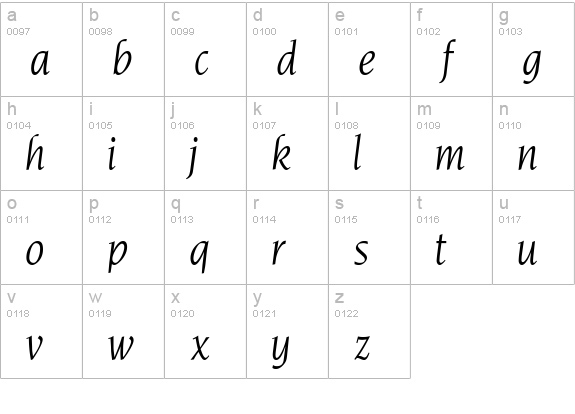
Novarese Italic Font Details
Novarese Italic is a distinctive, italic variant in the Novarese typeface family \xE2\x80\x94 well suited to design and typography projects.
Novarese Italic font is a stunning and elegant typeface that exudes sophistication and charm. Its delicate curves and graceful slant create a sense of fluidity and movement, making it perfect for adding a touch of class to any design project. The slender letterforms of Novarese Italic convey a sense of refinement and style, making it an ideal choice for invitations, branding, and editorial designs. What sets Novarese Italic apart is its versatility and timeless appeal. Whether used for headlines, body text, or accents, this font shines in any context. The italicized version adds a touch of flair and emphasis, making it a standout choice for projects that require a touch of elegance. The best part? Novarese Italic font is freely available to download at FontsMarket.com, making it accessible to designers and creatives looking to elevate their work with a touch of sophistication. Don't miss out on the opportunity to add this beautiful typeface to your collection and bring a touch of timeless class to your designs.